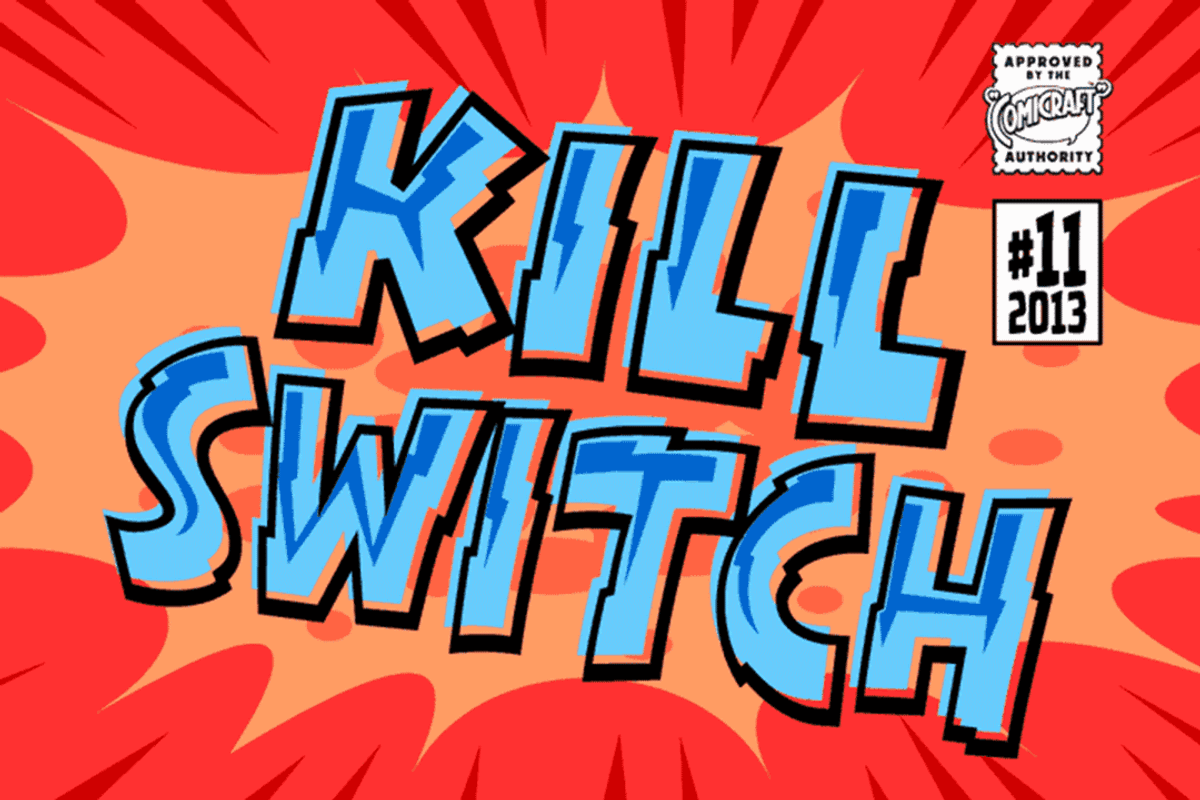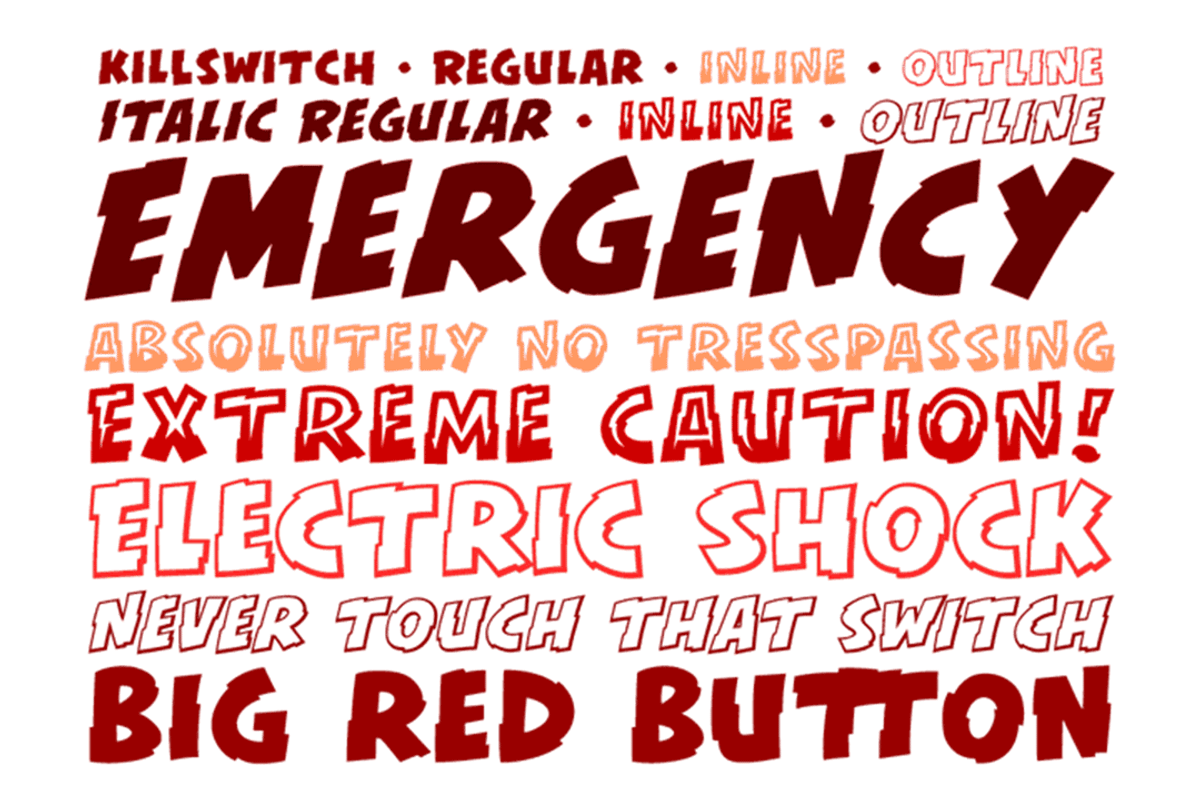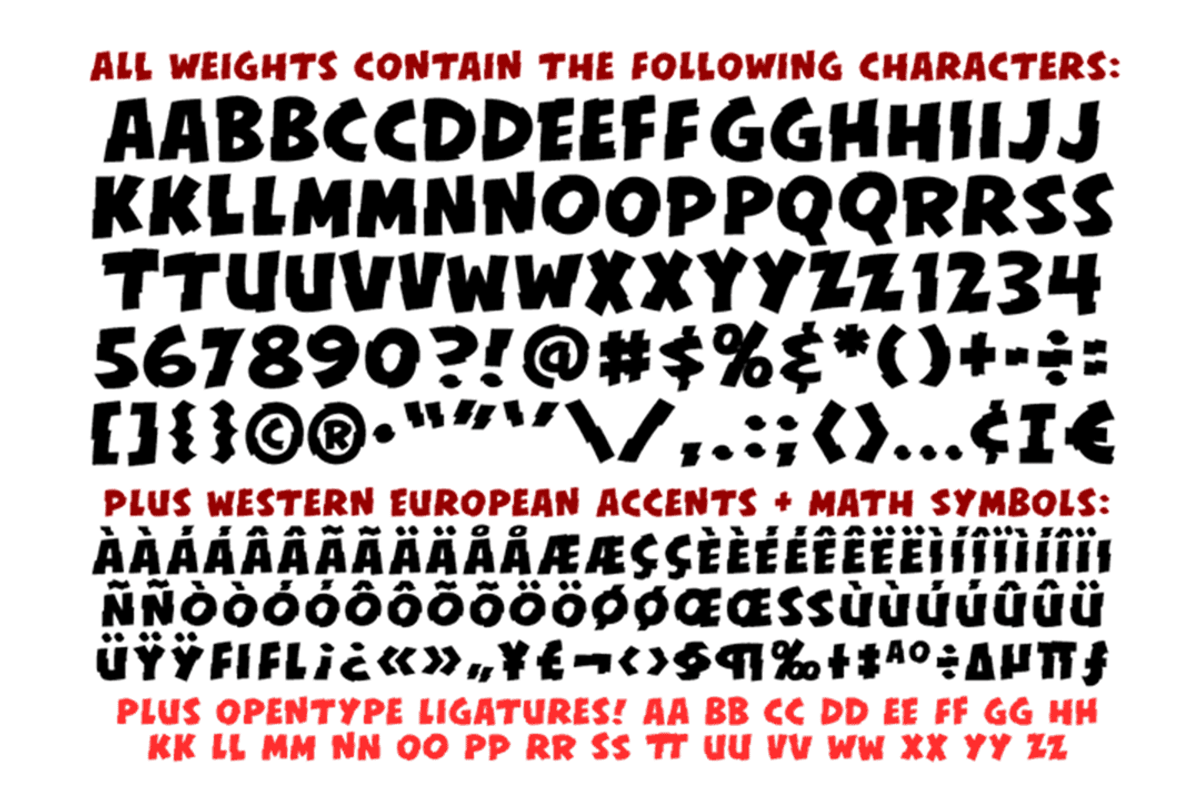
Killswitch
Killswitch by Comicraft Fonts is a font selected for branding, posters, packaging, typography.
Killswitch by Comicraft Fonts fits naturally into Branding, posters, packaging, typography.